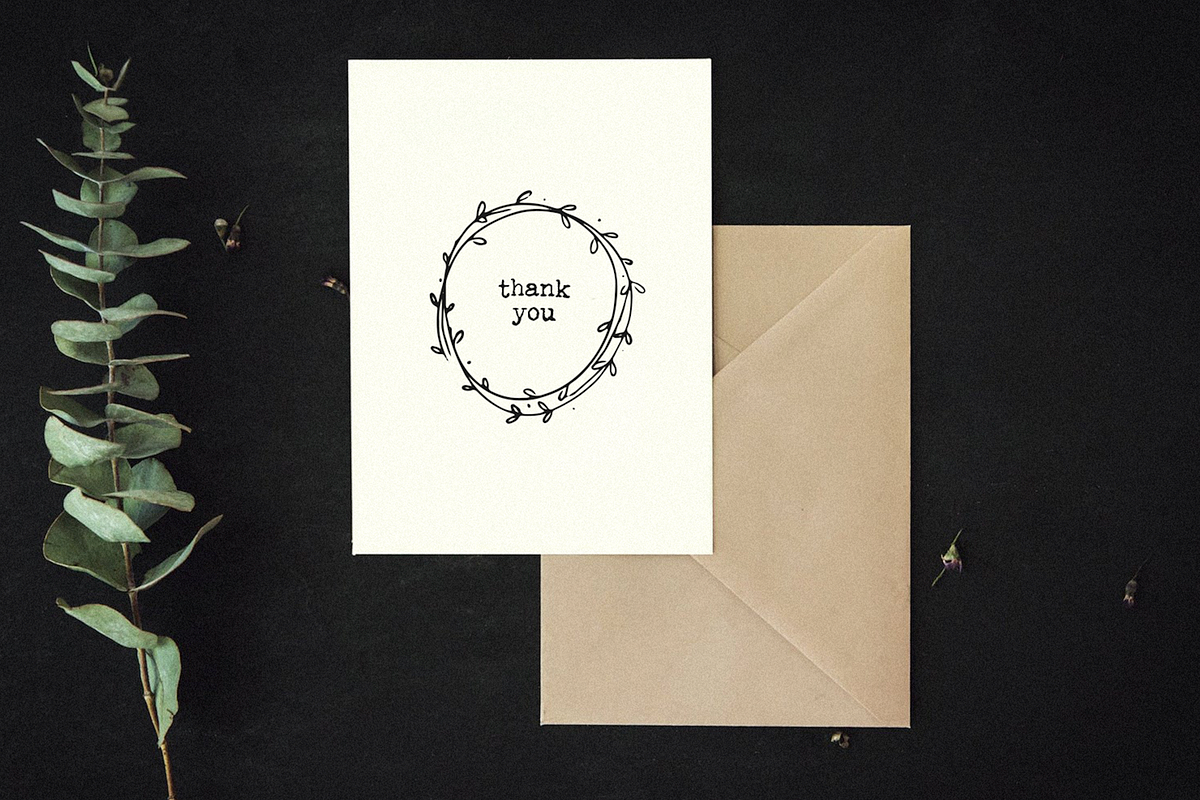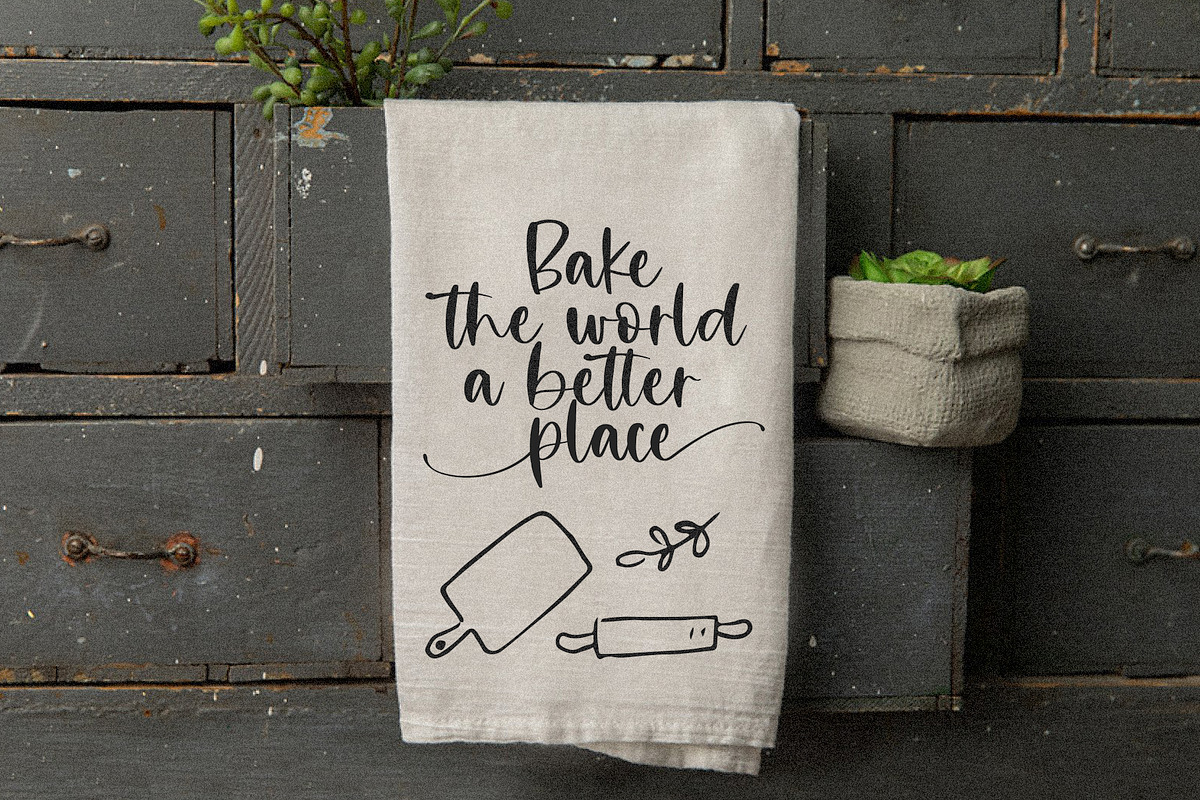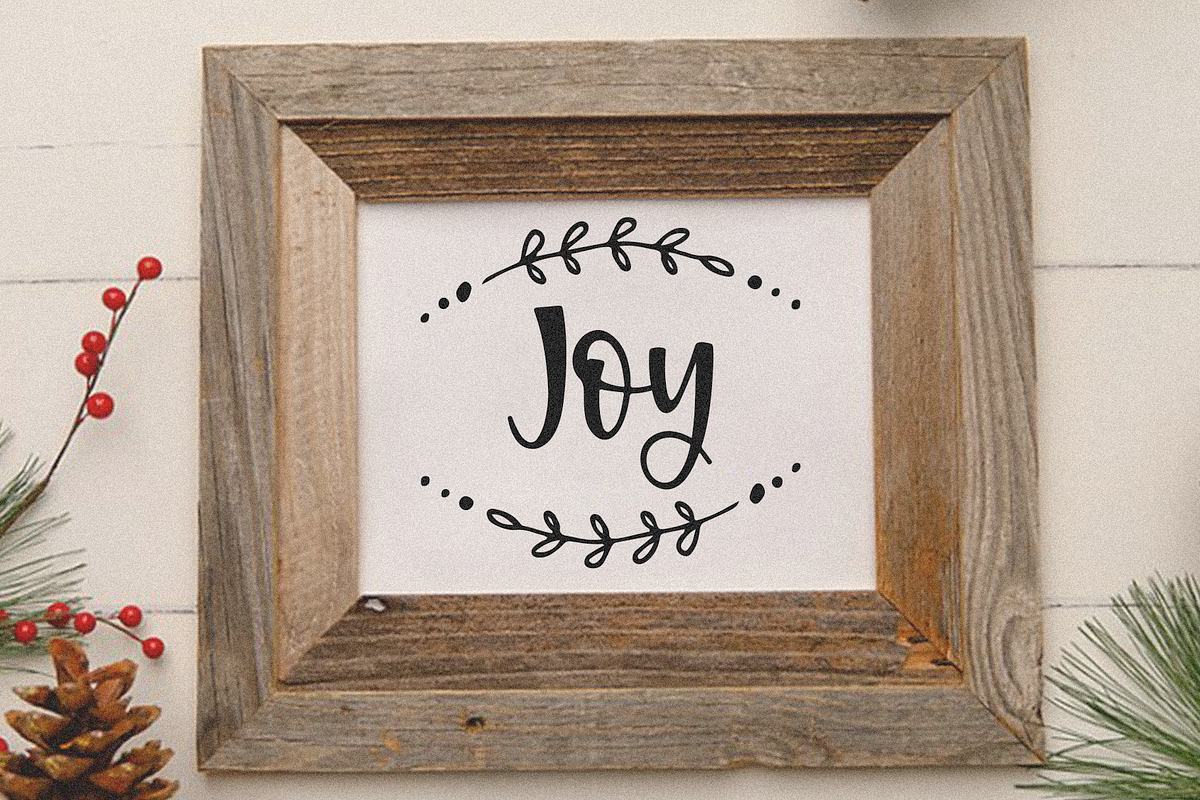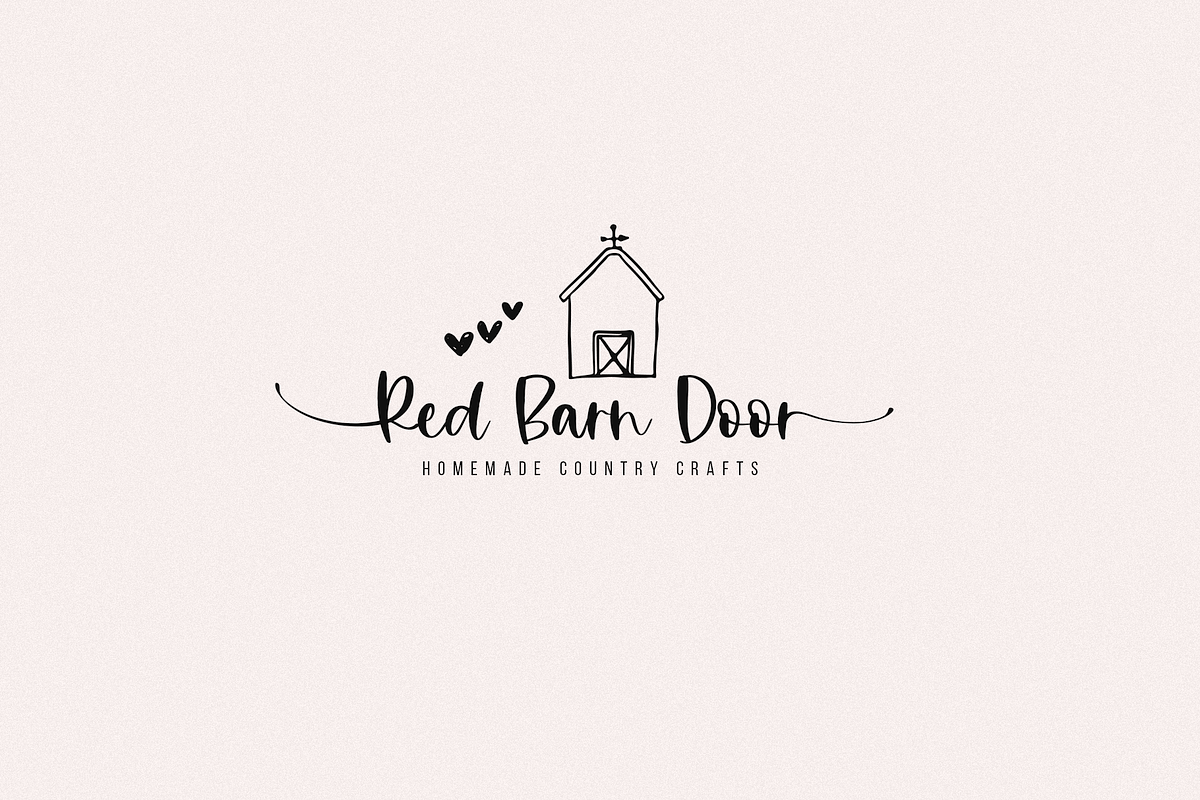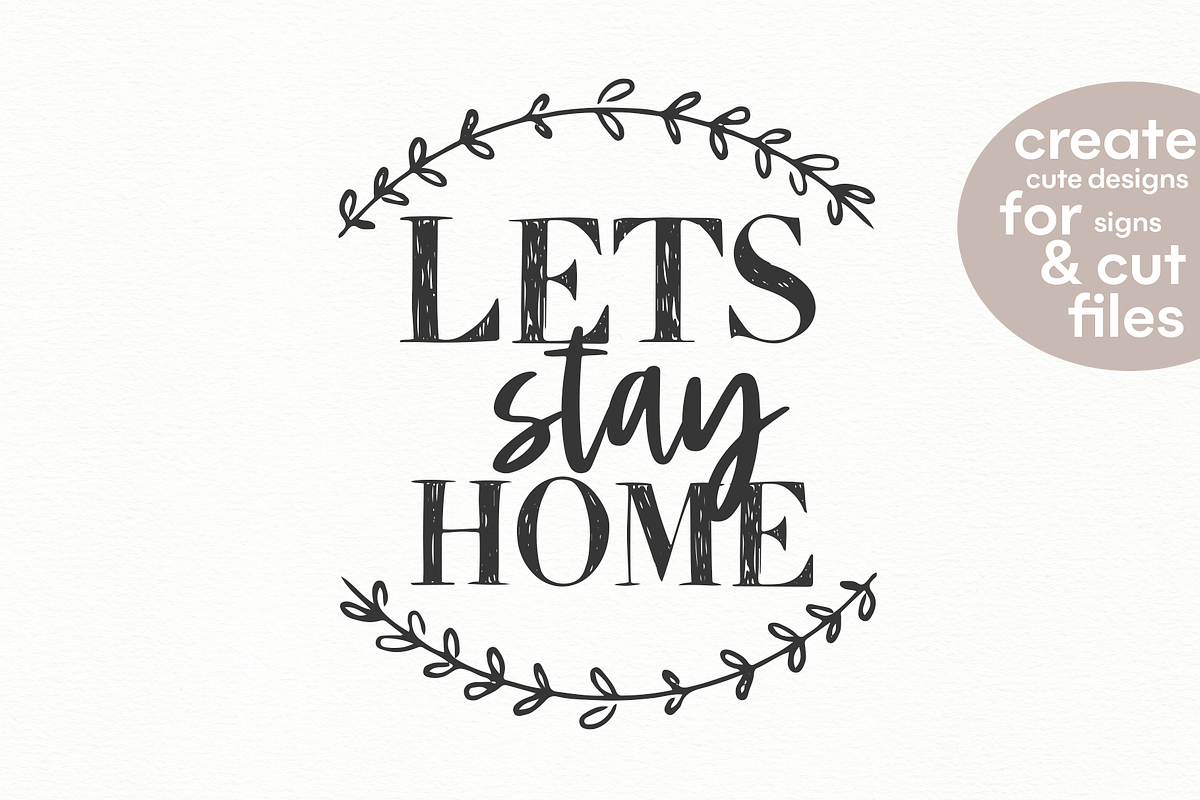
Farmhouse Doodles Font
Farmhouse Doodles Font is a fun way to create farmhouse designs without needing to use clip art images! The images were created to purposely have a messy and "rustic" look!
USE LETTERS A-Z/a-z to access the doodles.
This font is perfect for your farmhouse decor, branding, cards, signs, and more!
There are so many different styles that you can create with this font!
- There are 52 farmhouse font doodles included.